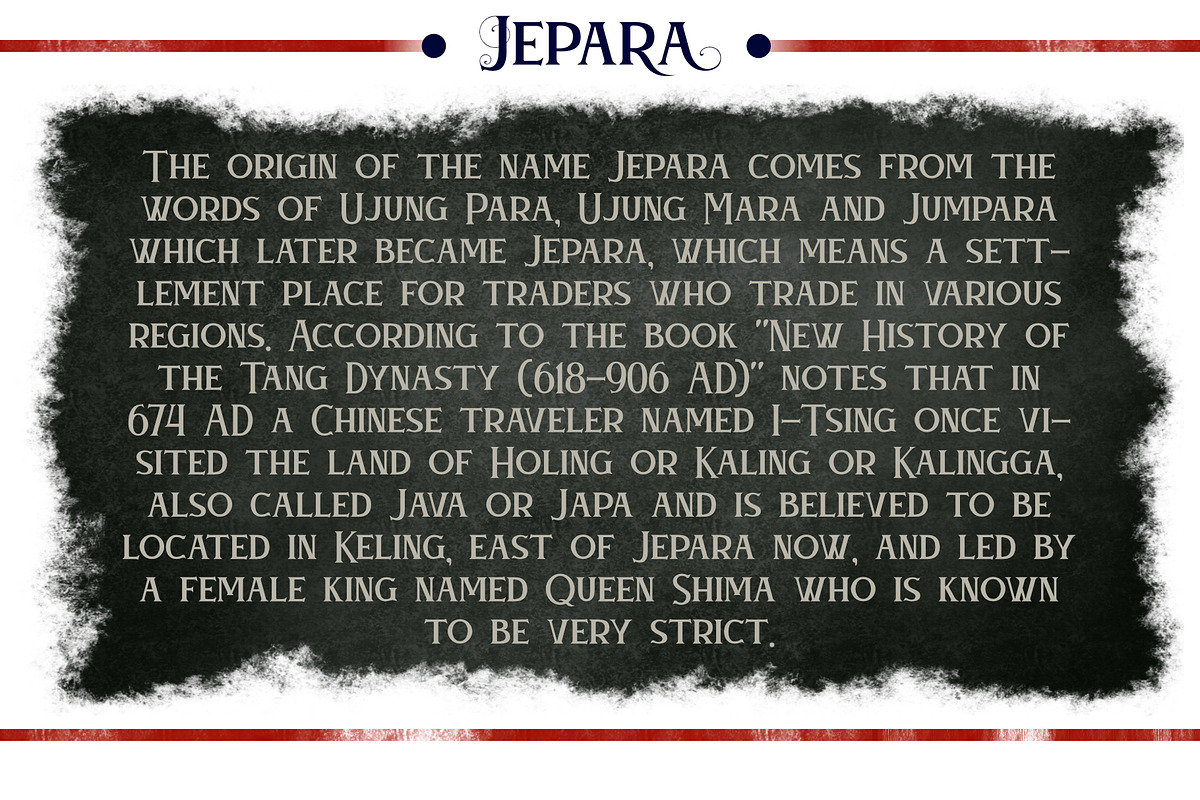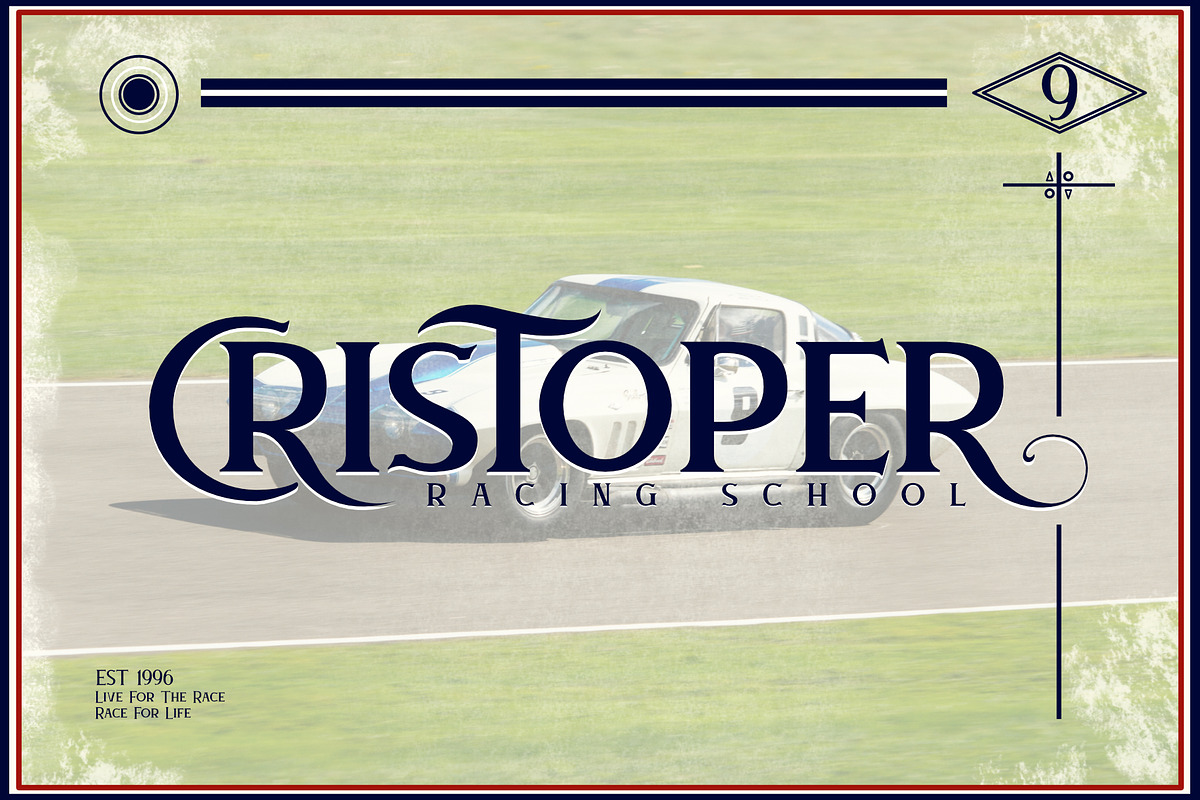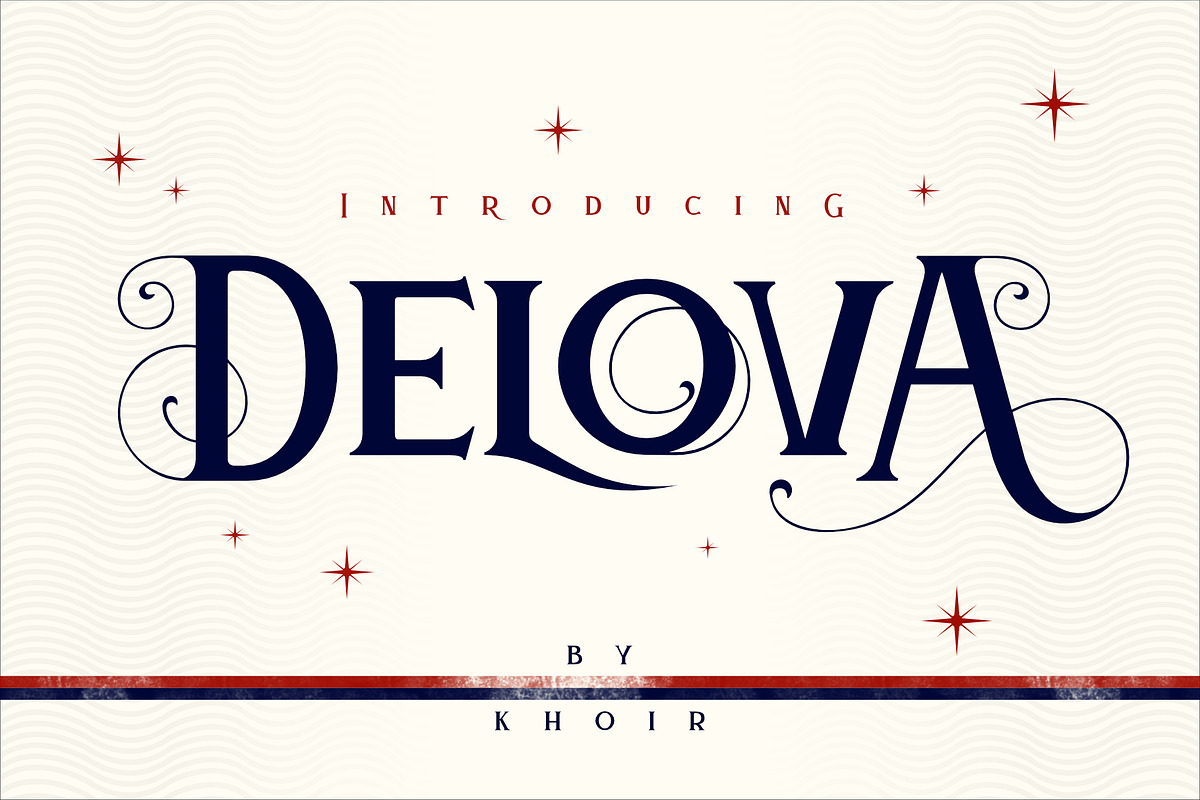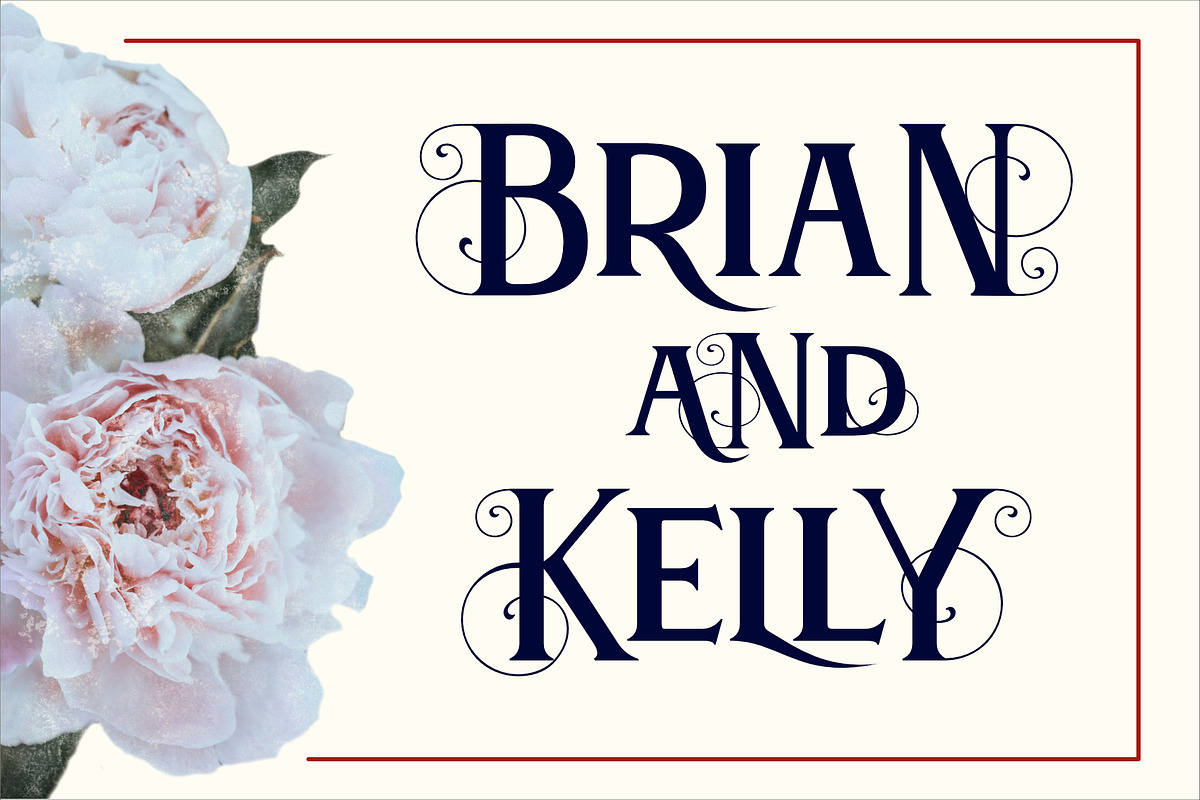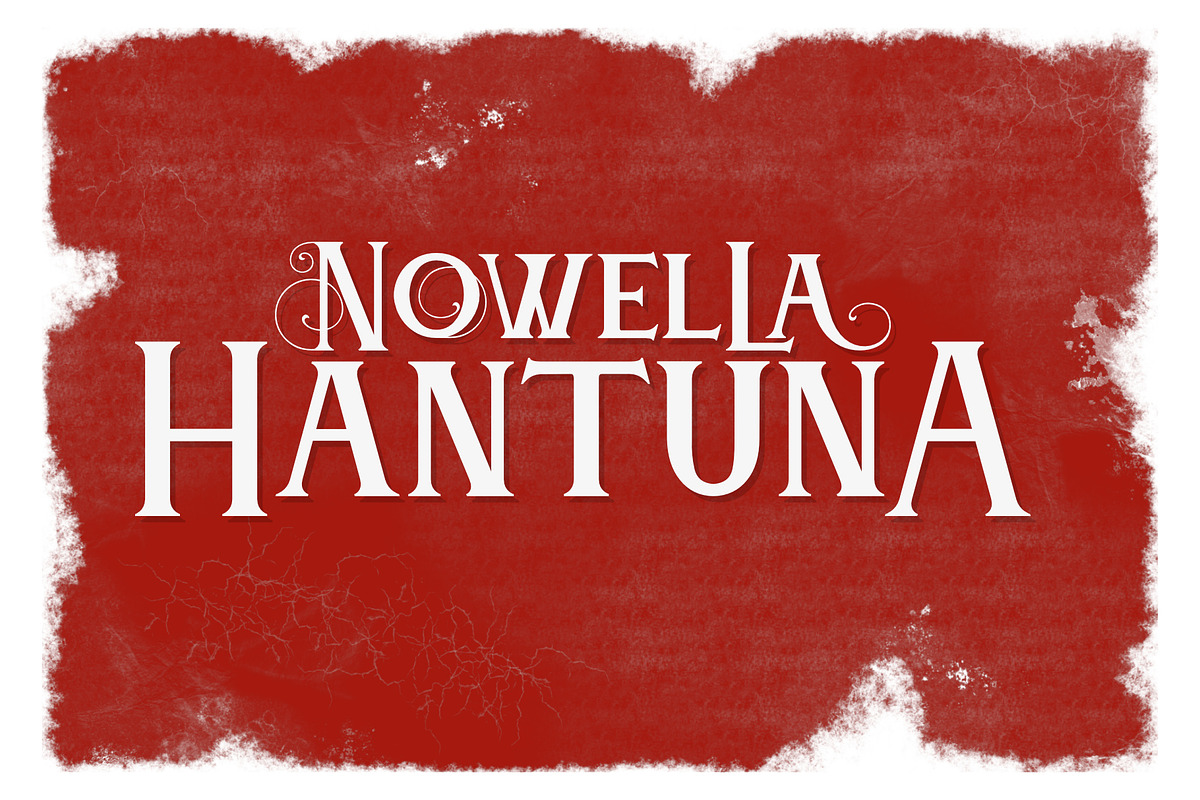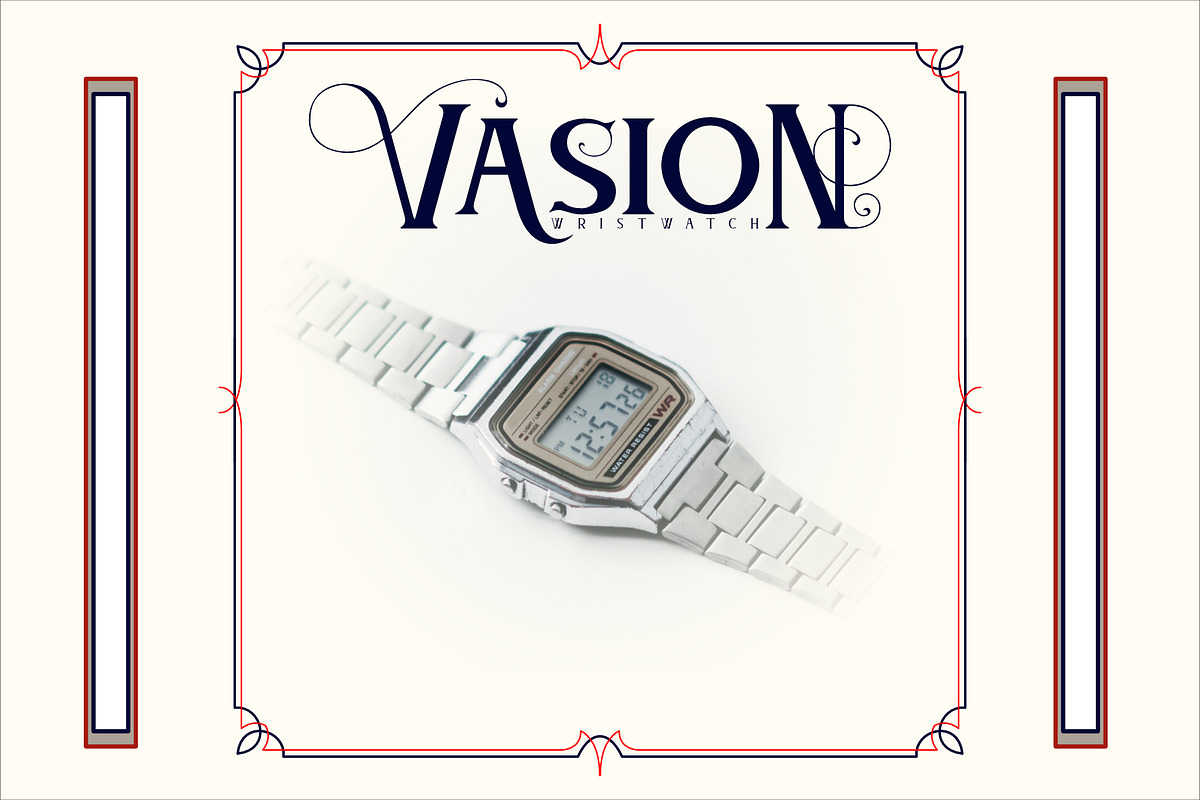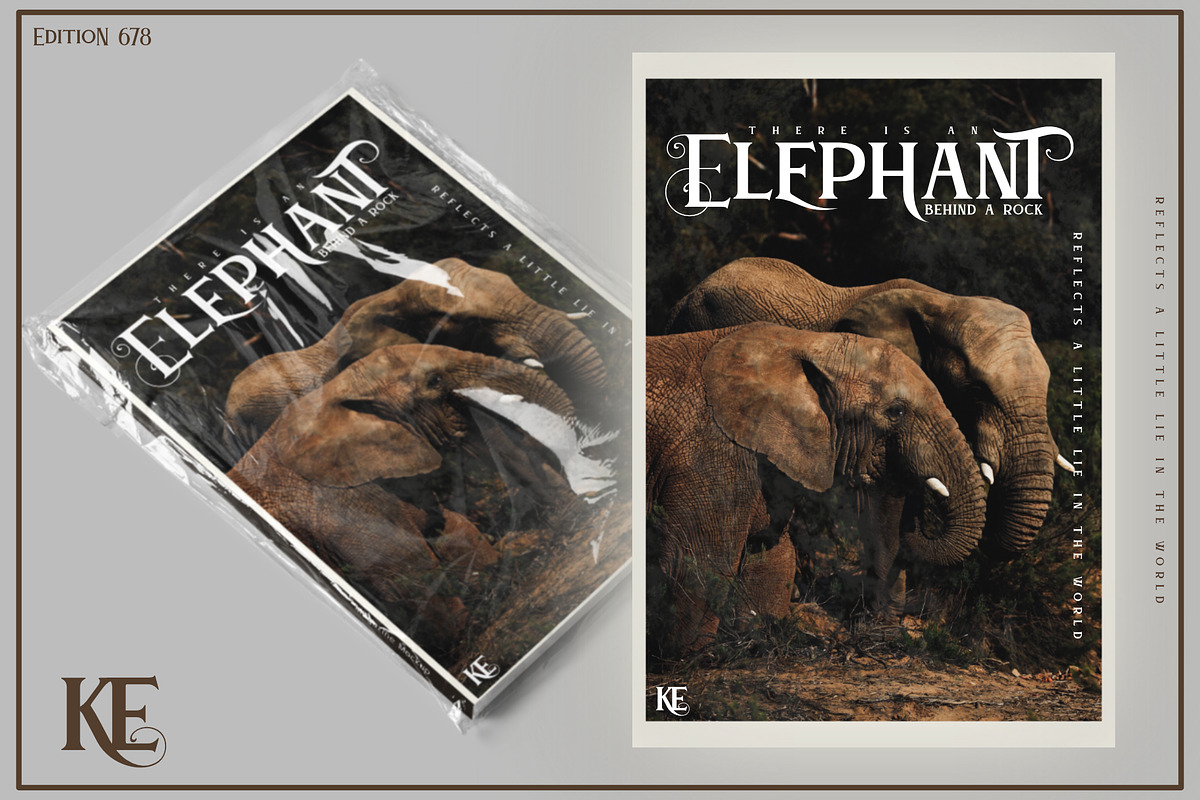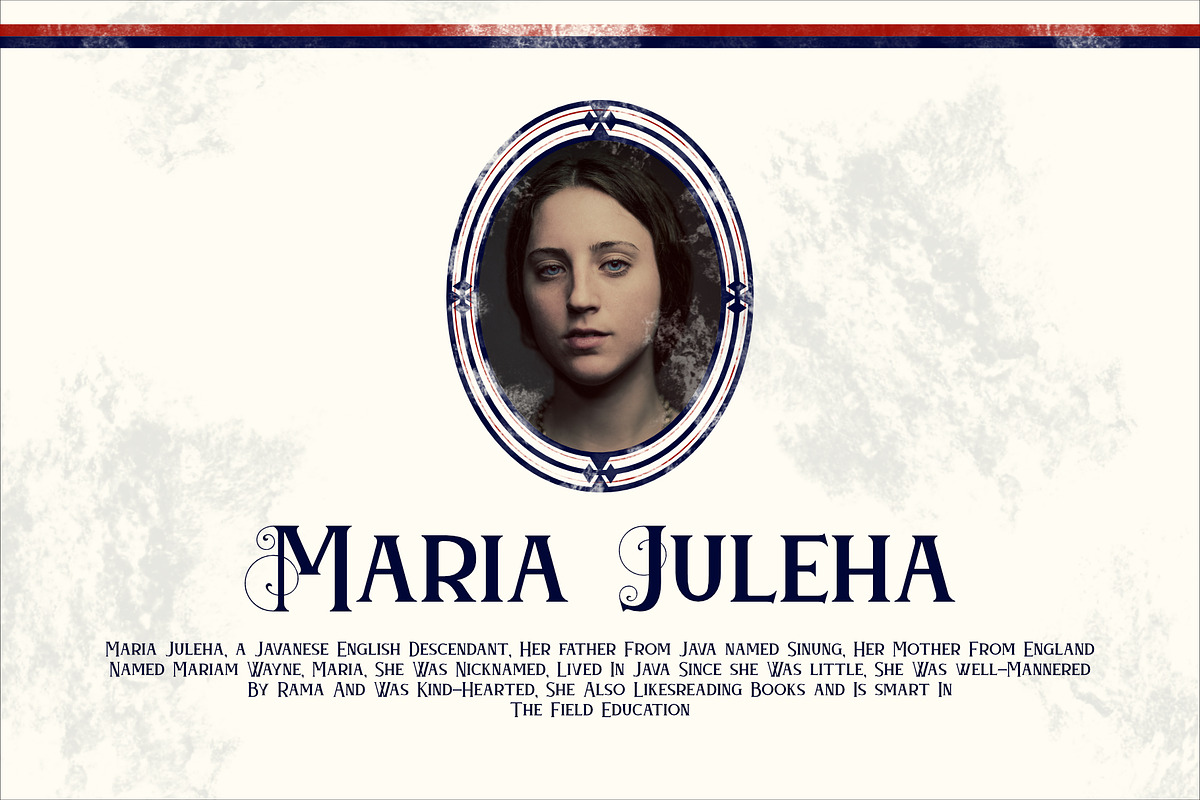
Delova - The Classic Font
Delova - The Classic Minimalist
Delova is an elegant classic serif font with a touch of minimalist modern style, with all alternative fonts totaling 104 alternatives to make you more able to explore your design as much as possible, Delova offers a variety of options and is suitable for logos, films, books, packaging, invitation cards, brending and much more. so what are you waiting for?
Delova - The Classic Font by Khoir fits naturally into Branding, posters, packaging, typography.